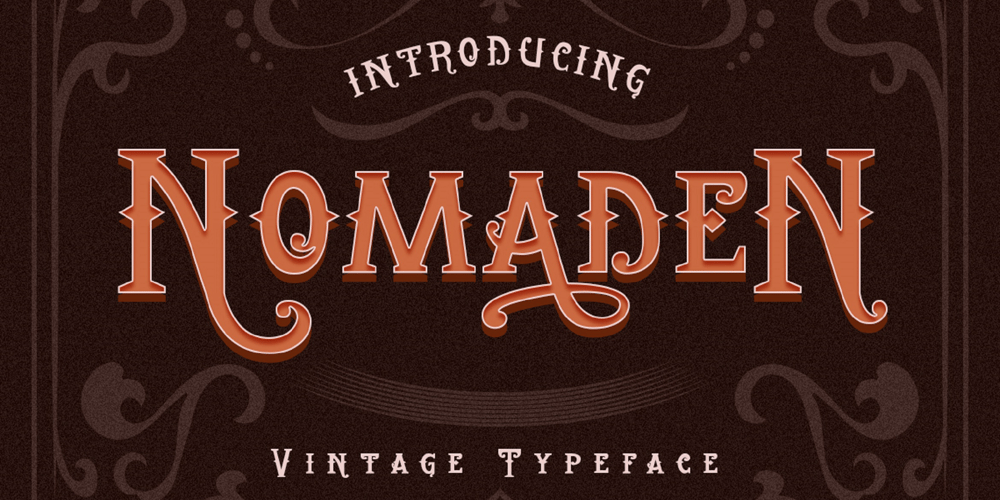
Nomaden Font Family was designed by Heri Imanudin and published by Krafted. Nomaden contains 1 styles and family package options. Looking to make your brand unique and memorable? Maybe you wish to create advertisements that draw attention? A captivating vintage font is a great way to do it!Introducing Nomaden – A Vintage Typeface Font.This exquisite font will look fantastic on packaging, clothing, printed material, and everything else your brand needs. On top of this, you can also use it for websites and social media, making sure that you always stand out from the crowd.What you’ll get: Multilingual & Ligature Support Full sets of Punctuation and Numerals Compatible with: Adobe Suite Microsoft Office KeyNote Pages Software Requirements: The fonts that you’ll receive in the pack are widely supported by most software. In order to get the full functionality of the selection of standard ligatures (custom created letters) in the script font, any software that can read OpenType fonts will work. We hope you enjoy this font and that it makes your branding sparkle! Feel free to reach out to us if you’d like more information or if you have any concerns.